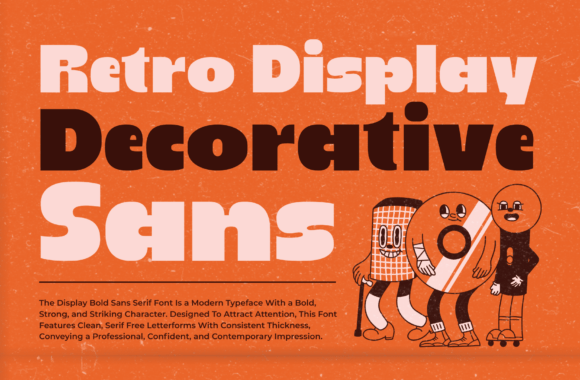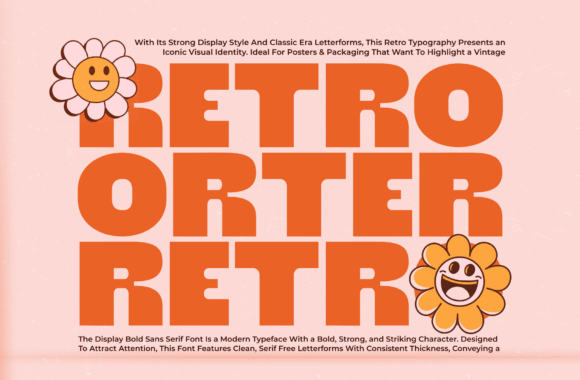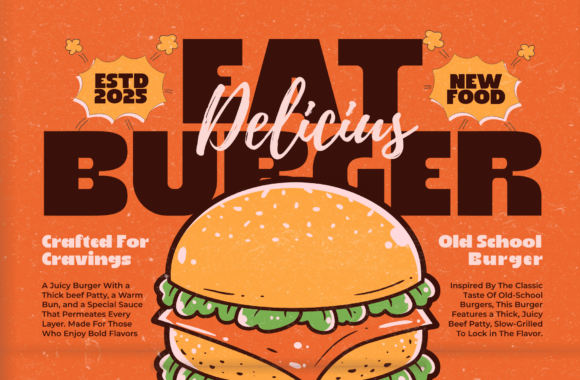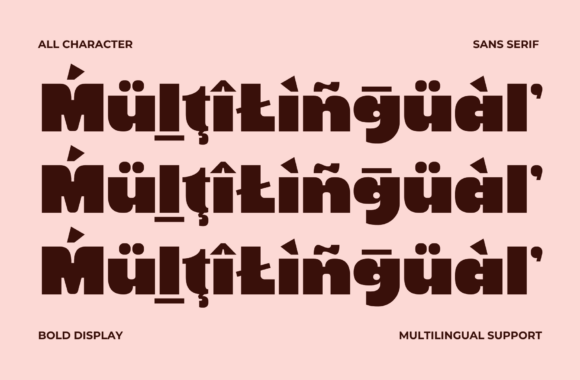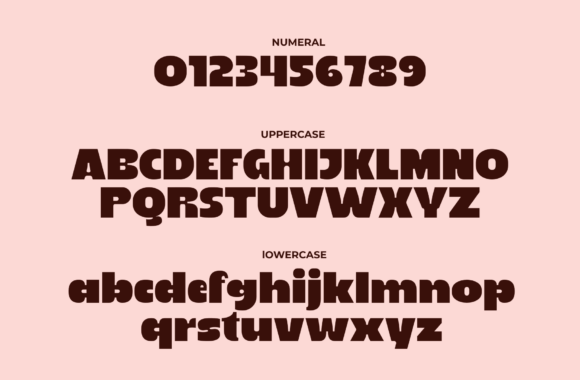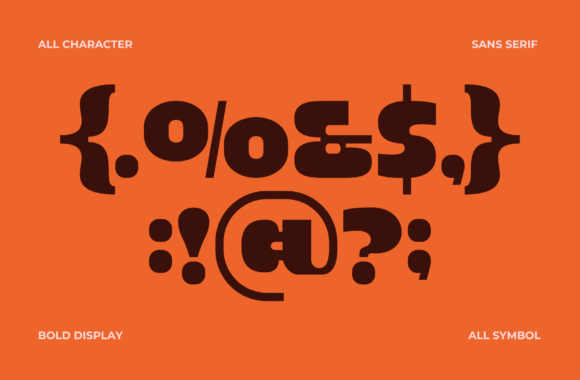
The Birth of a Bold Typographic Statement
Have you ever stared at a blank canvas, trying to create that one perfect visual impact? You know, the moment when your design comes alive and leaves a lasting impression. For designers, this is the holy grail – and the Bileko Font is here to help you achieve it.
Meet Bileko, a modern sans-serif display font designed to make a statement. With its heavy weight, clean geometry, and confident character, Bileko is the perfect tool for creating bold, eye-catching typography that demands attention. Whether you’re working on a branding project, music festival poster, or statement apparel, Bileko Font provides a powerful presence that’s both clean and easy to read.
For designers, the Bileko Font is a valuable addition to their toolkit, offering a unique combination of modern style and versatility. Its extra-heavy weight and ultra-tight spacing create a powerful block-like aesthetic that dominates any design space, making it the go-to choice for bold branding and statement designs.
Bileko Font Key Features
- Font Family: Bileko Font
- Unique Characteristics: Bileko Font features a unique, hand-drawn design with a mix of modern and vintage elements, making it suitable for various design applications, including branding, packaging, and editorial content
Bileko Font Review
I recently had the chance to work with the Bileko font, and I wanted to share my honest thoughts on it. Overall, I think it’s a solid choice for certain projects, but it has its limitations.
- The Bileko font is highly legible, making it perfect for body text and longer blocks of content.
- The font’s modern and sleek design gives it a professional feel, ideal for corporate or business projects.
- The font is highly customizable, with a wide range of weights and styles to choose from.
Limitsations ⚠️
- The Bileko font can be a bit too sterile and lacks character, making it less suitable for creative or artistic projects.
- The font’s lines can be a bit too bold, which may not be ideal for projects where a more delicate look is required.
- The font’s limited support for certain languages and characters may be a concern for international projects.
Overall, the Bileko font is a solid choice for projects where a clean and professional look is desired. However, it may not be the best fit for projects that require a more creative or artistic approach.
Getting the Most Out of Bileko Font
To get the most out of Bileko Font, consider the following tips:
- Pair Bileko Font with other fonts to create a unique and eye-catching design.
- Use Bileko Font for headings and titles to draw attention to important information.
Bileko Font is ideal for:
- Designing creative and modern branding materials.
- Creating eye-catching social media graphics.
- Developing unique and engaging marketing materials.
Alternatives to Bileko Font for Designers
Oswald is a sans-serif font that is highly legible and versatile. It is best used for headings, titles, and short paragraphs. Oswald has a similar feel to Bileko Font but is more geometric and modern. It is ideal for digital interfaces, magazines, and posters.
Montserrat is a sans-serif font that originated from signage in a neighborhood in Buenos Aires. It is highly legible and versatile, making it suitable for a wide range of designs. Montserrat is more condensed than Bileko Font and has a stronger geometric feel, making it ideal for digital interfaces, magazines, and billboards.
Open Sans is a modern sans-serif font that is highly legible and versatile. It is best used for body text, paragraphs, and short sentences. Open Sans has a similar feel to Bileko Font but is more rounded and friendly, making it ideal for digital interfaces, blogs, and social media.